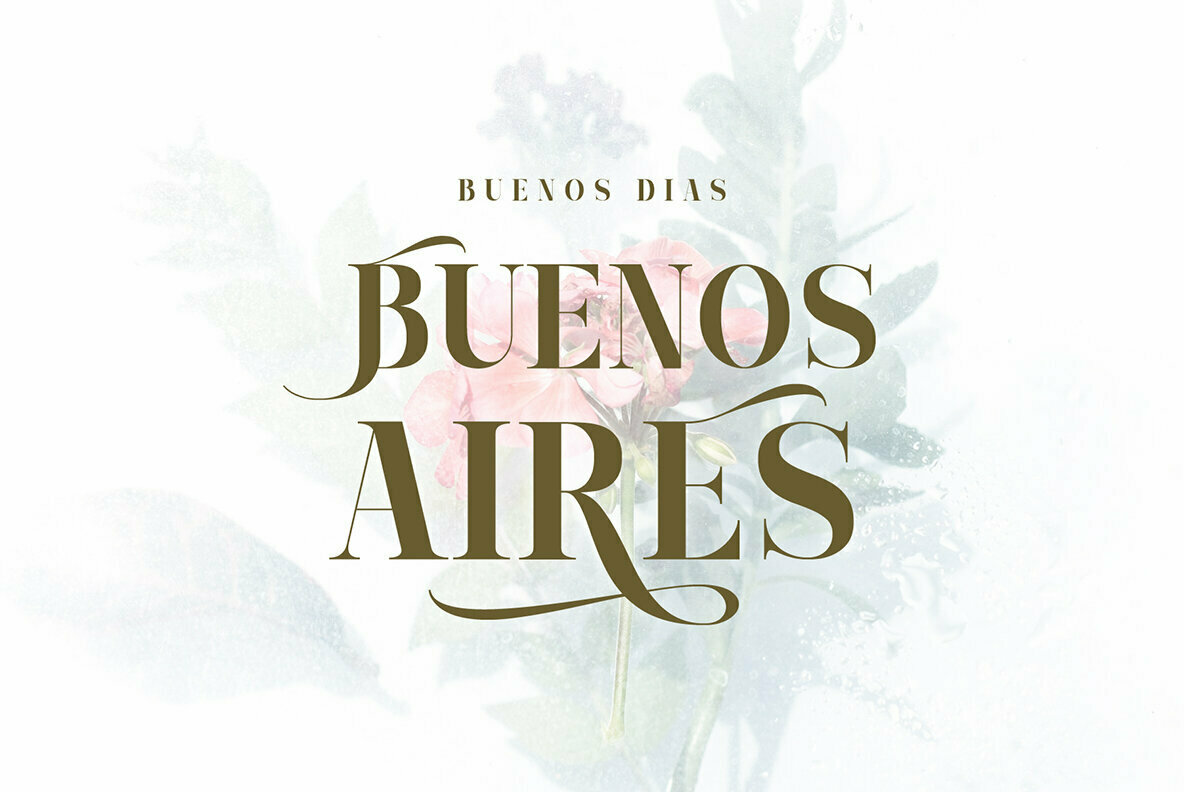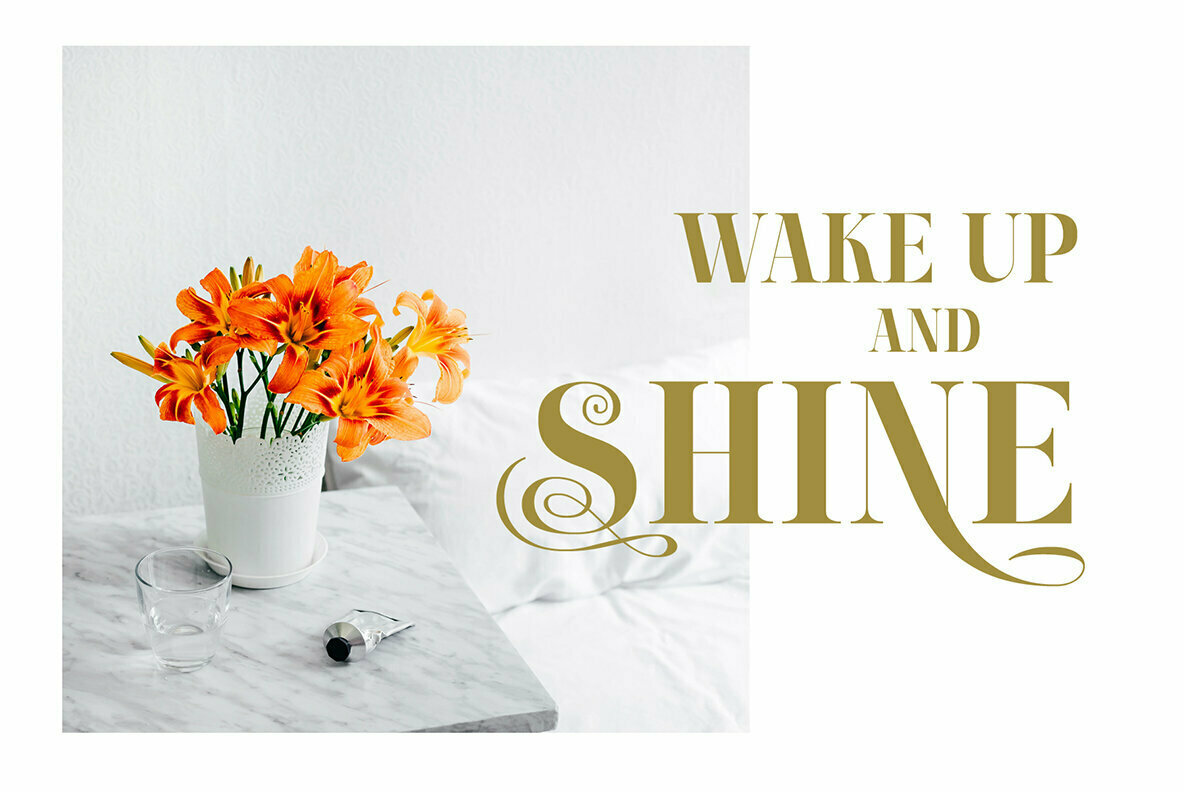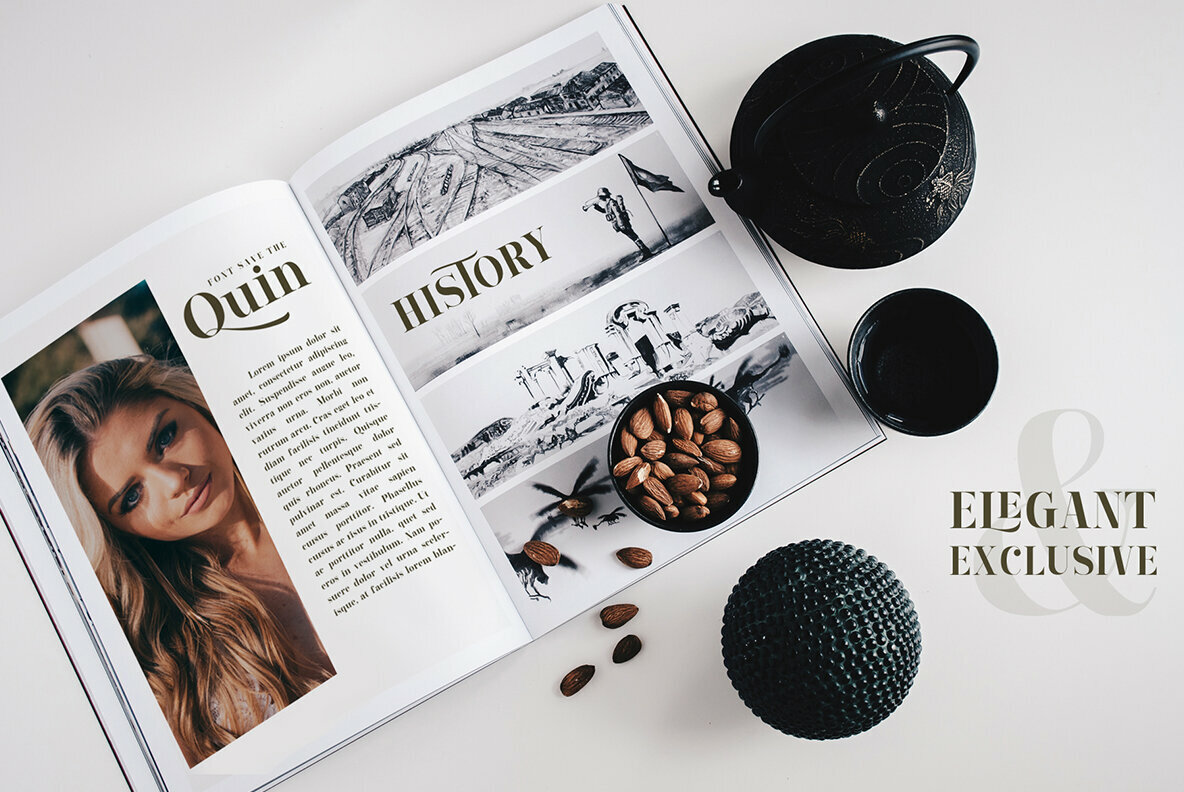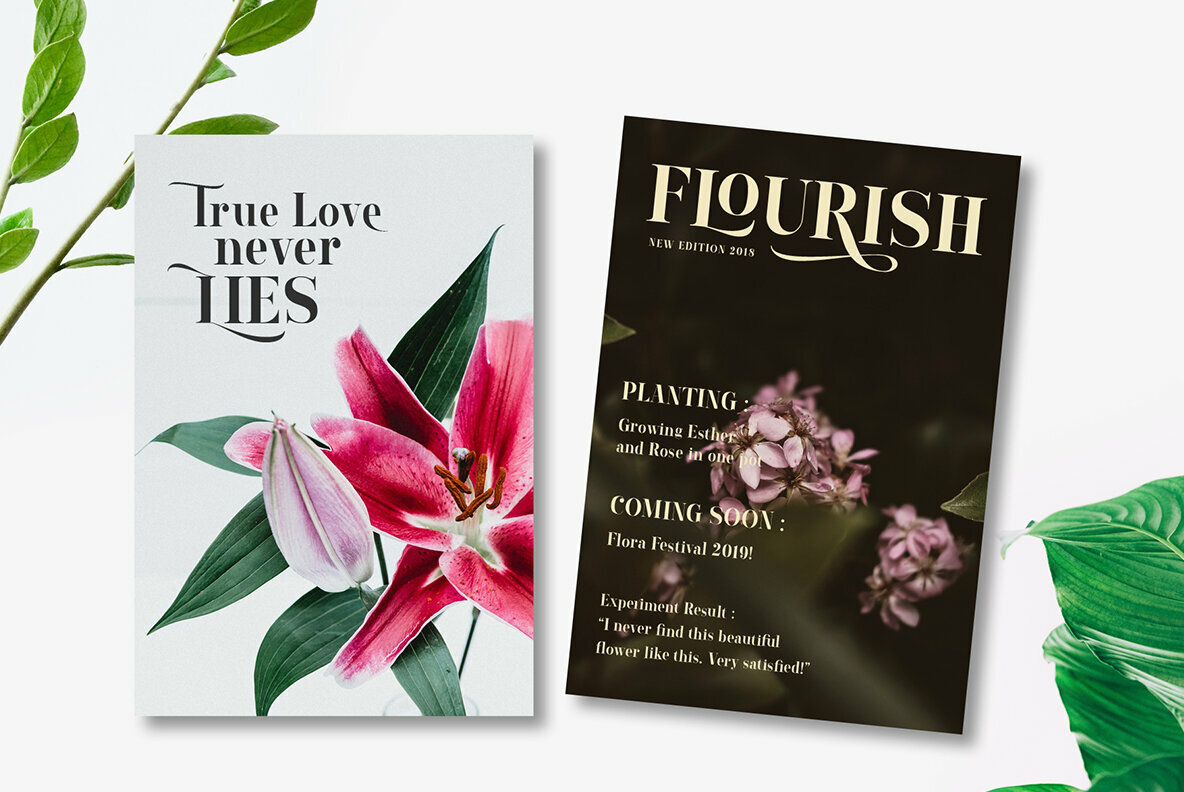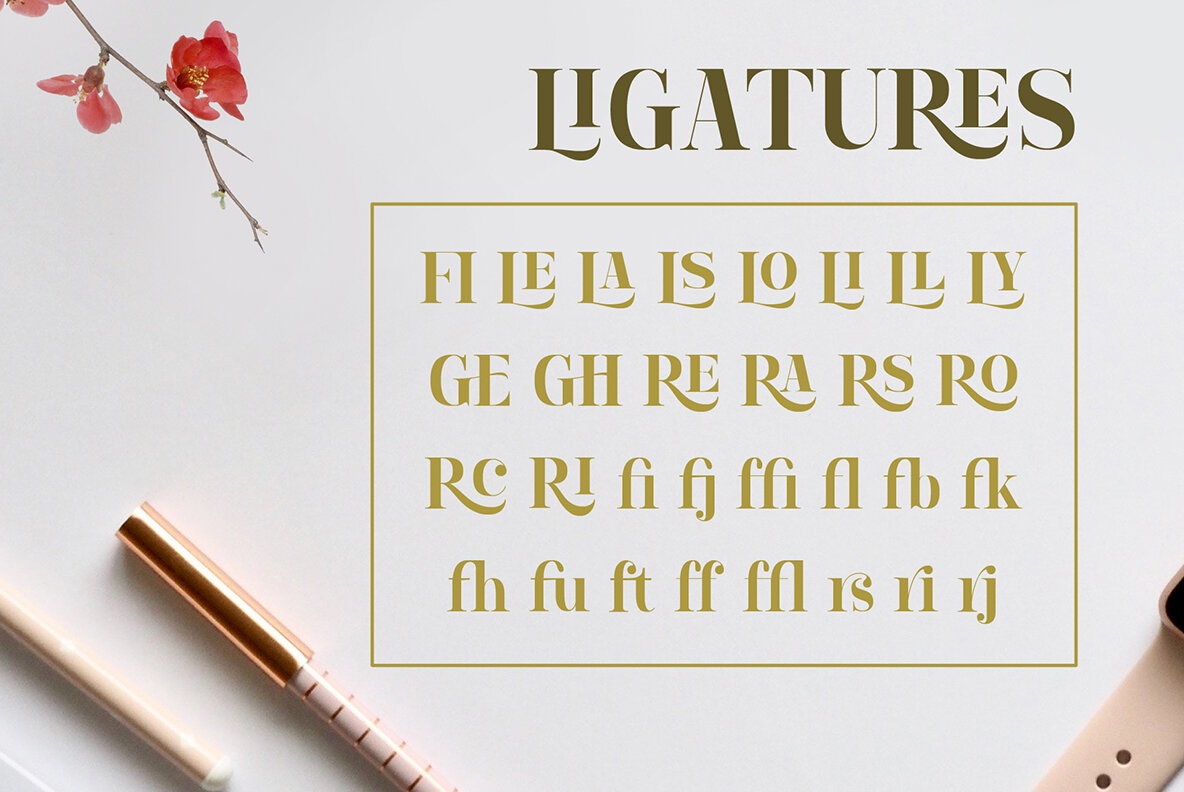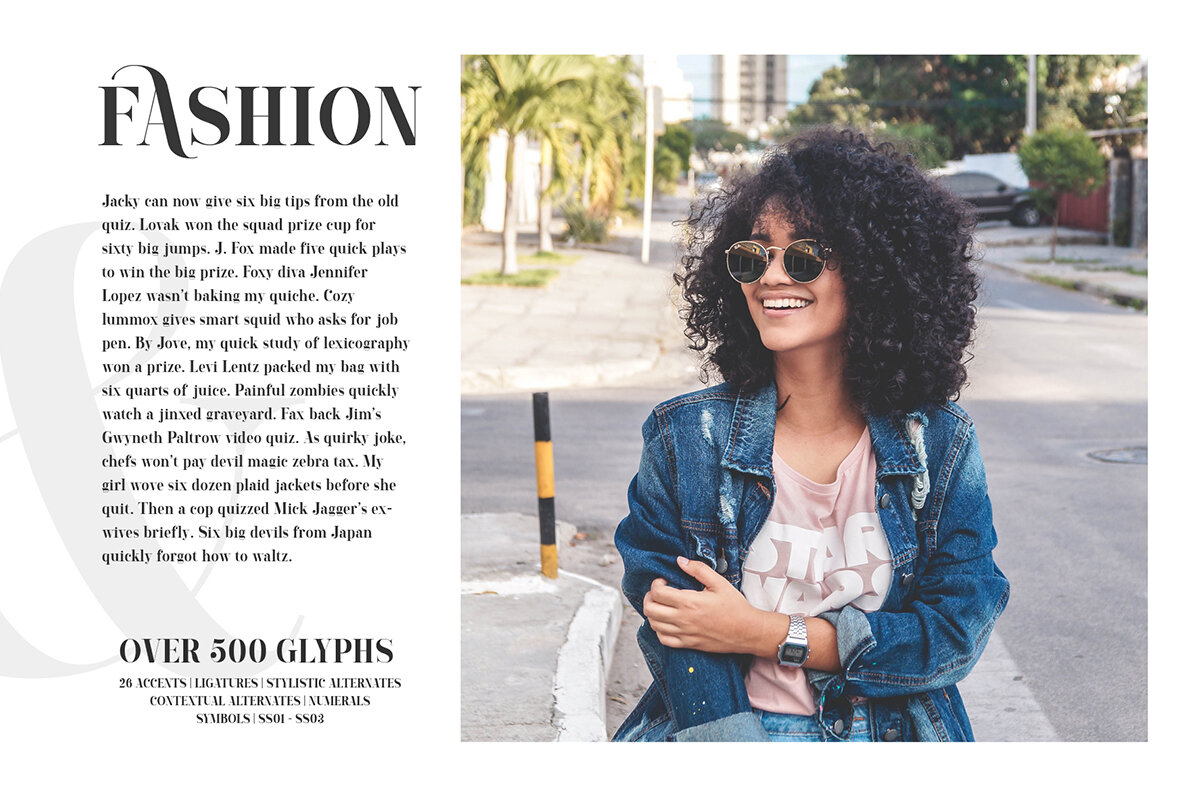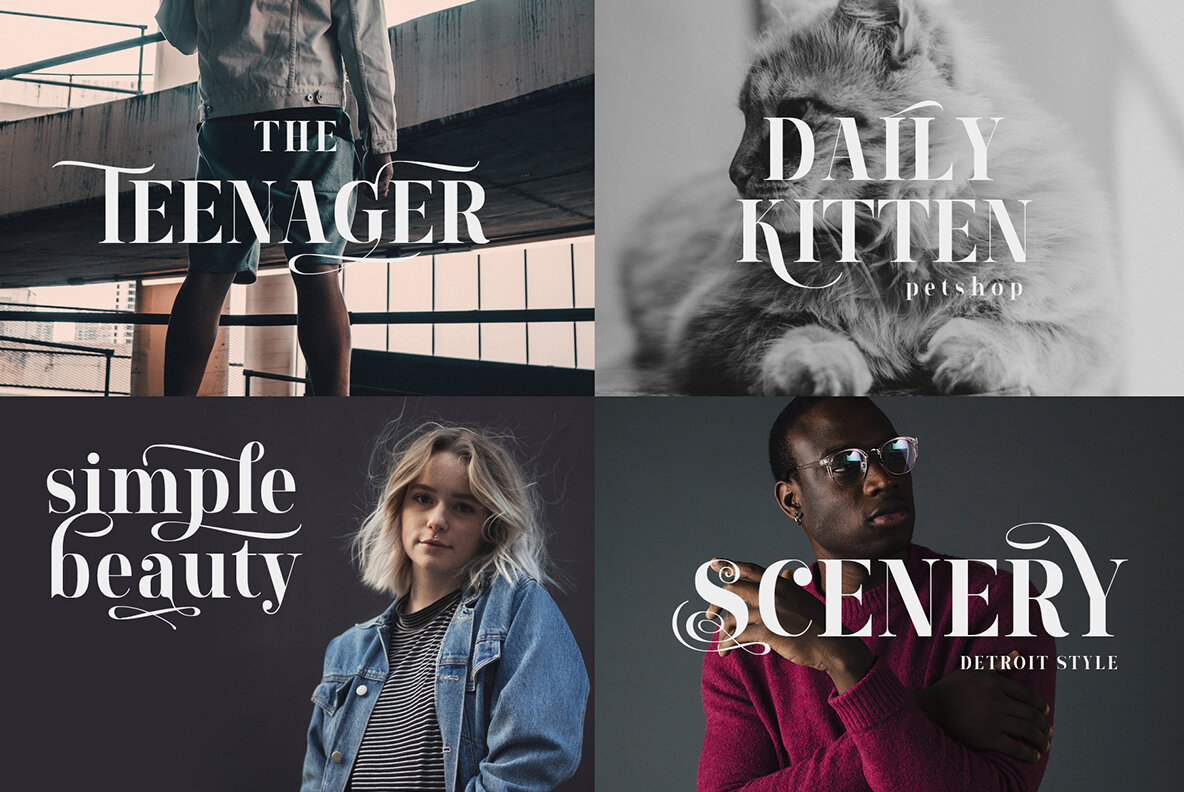
Lourena
Lourena is a sophisticated serif font crafted for the discerning designer. Inspired by the timeless appeal of calligraphy and graphic elegance, this typeface offers versatility across various media. Designed with a modern and minimalist aesthetic, Lourena is ideal for editorial projects and pairs seamlessly with script, handwritten, or signature fonts. Features:Lourena: Fashionable Serif with Elegant Extras
Lourena offers endless possibilities for editorial design, logo creation, merchandise, and much more, making it a valuable addition to any designer's toolkit.